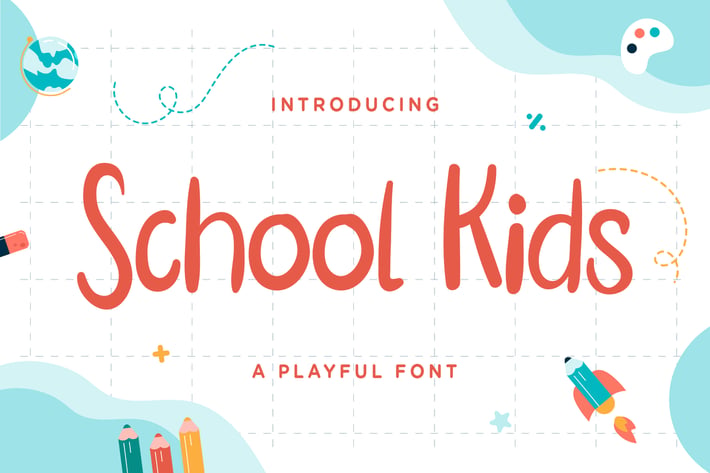
School Kids – Playful Font
School Kids is a playful font.
Suited for school-themed design for children
It can be used for various purposes such as school-themed design for children, quotes, descriptions, mug, invitation, letterhead, signage, labels, news, posters, badges and so much more.